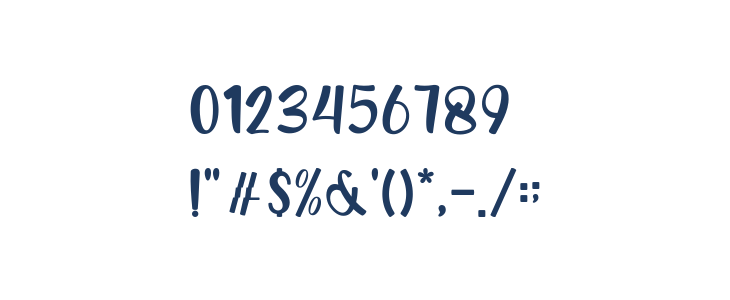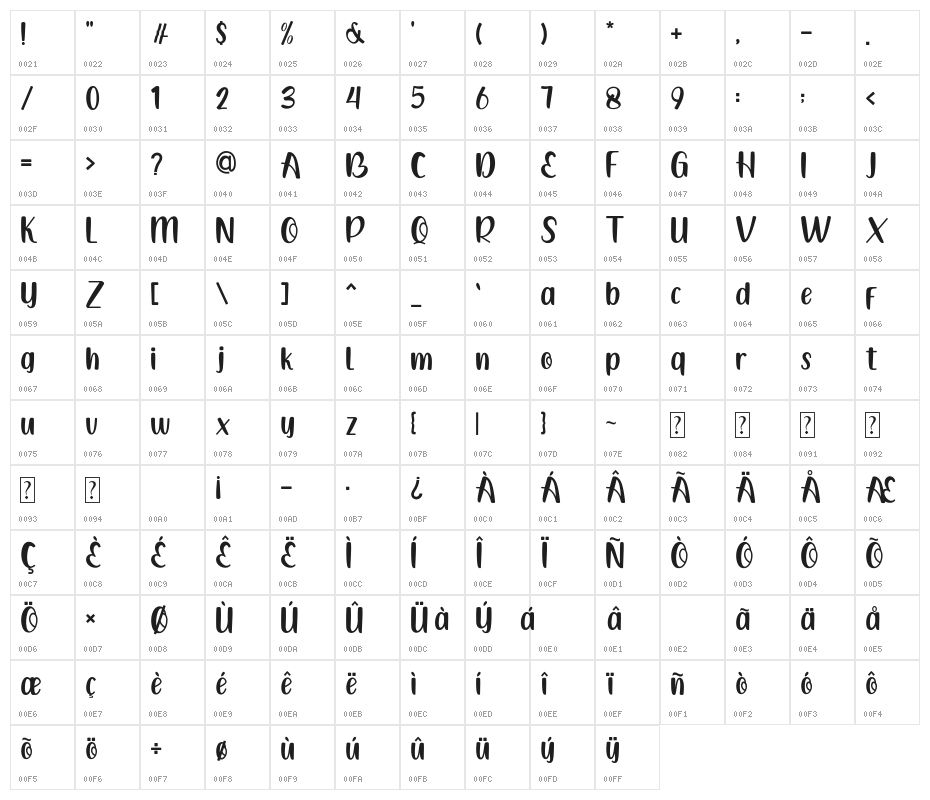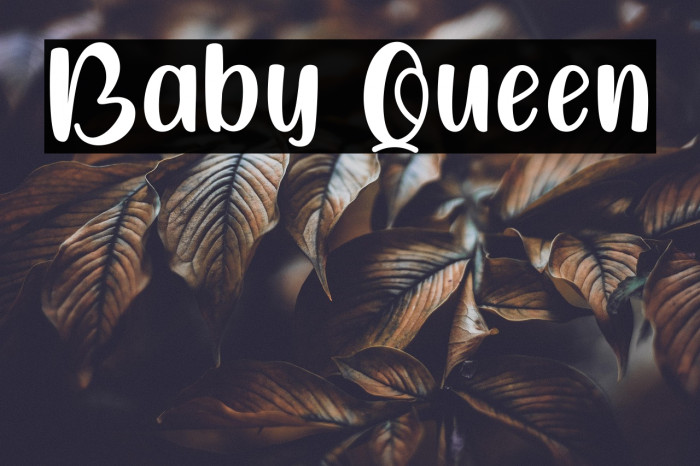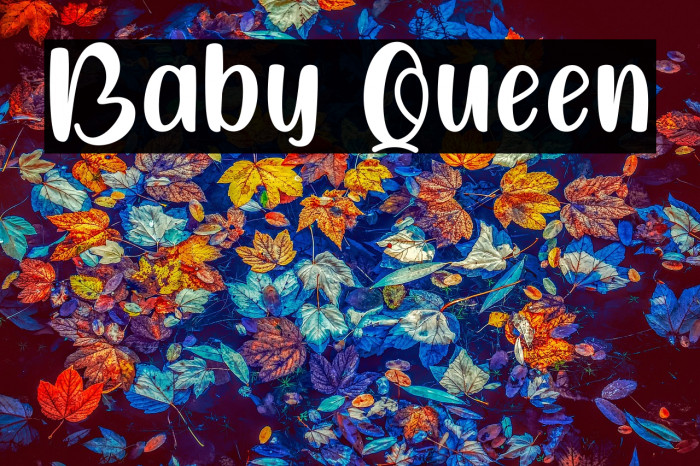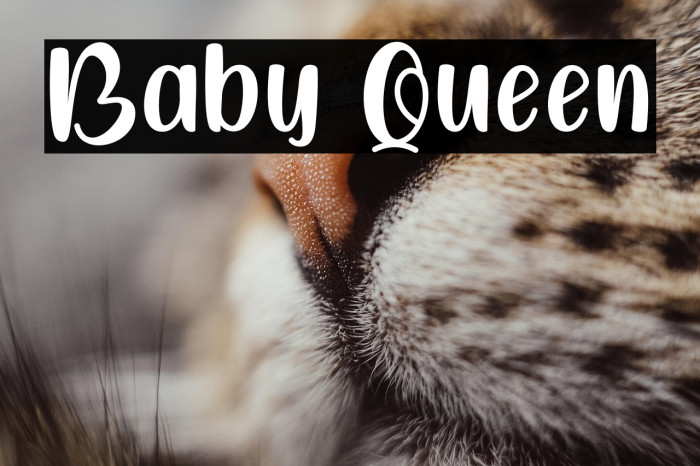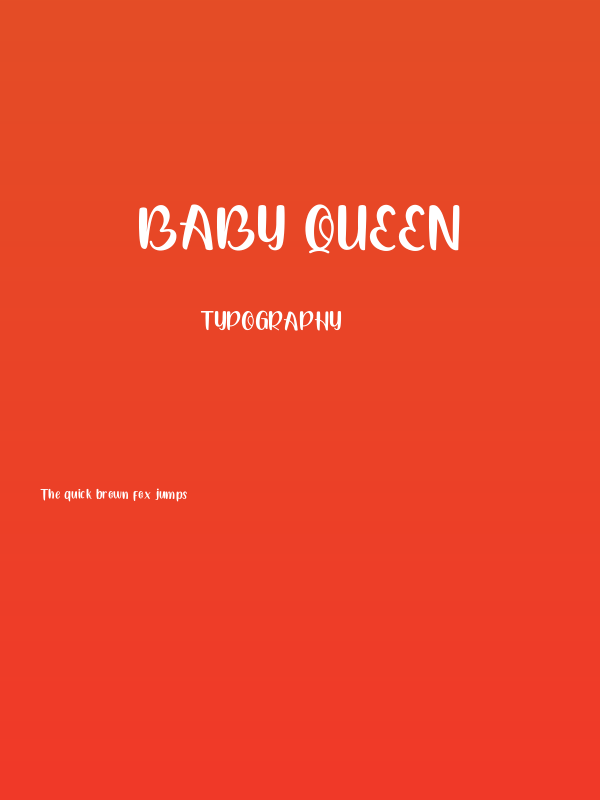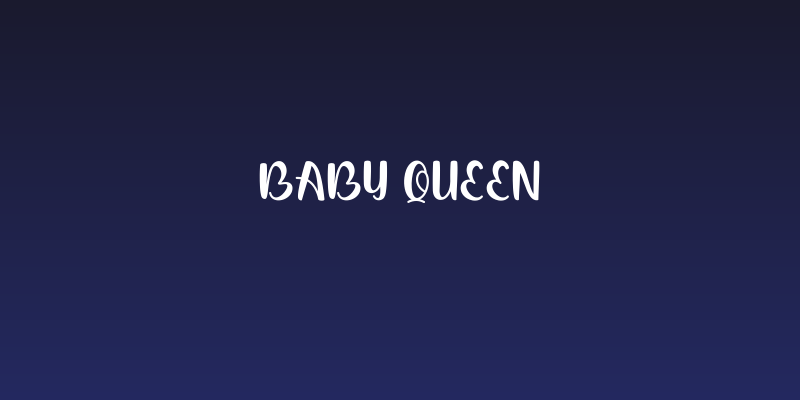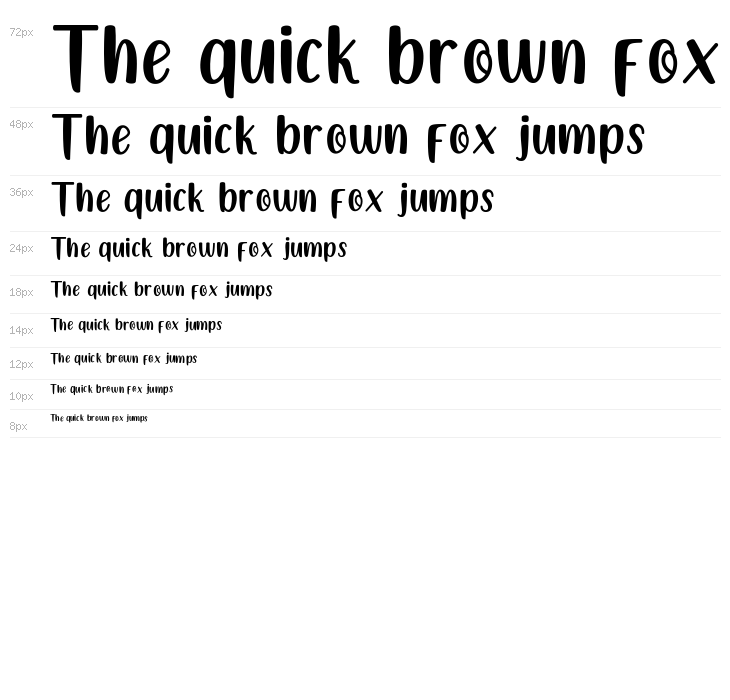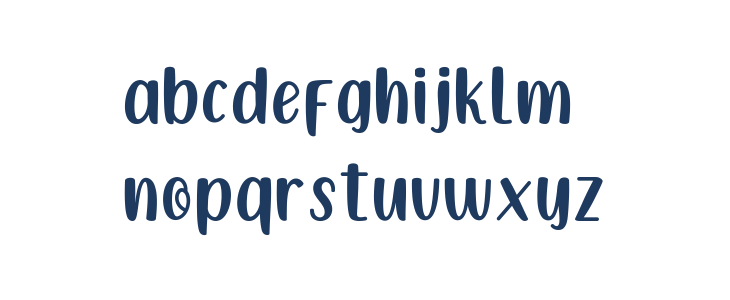
Baby Queen Font
Baby Queen Description
This playful and whimsical font features bold, rounded characters with a hand-drawn feel. The uppercase letters are slightly taller than the lowercase, adding a touch of elegance to its casual style. The strokes are thick and consistent, giving it a strong presence. The numbers and special characters maintain the same playful aesthetic, making it versatile for various uses. Its unique style is characterized by smooth curves and a friendly appearance, perfect for adding a personal touch to any project.
| Proposed Projects | Ideal for children's books, playful branding, greeting cards, and creative social media graphics. |